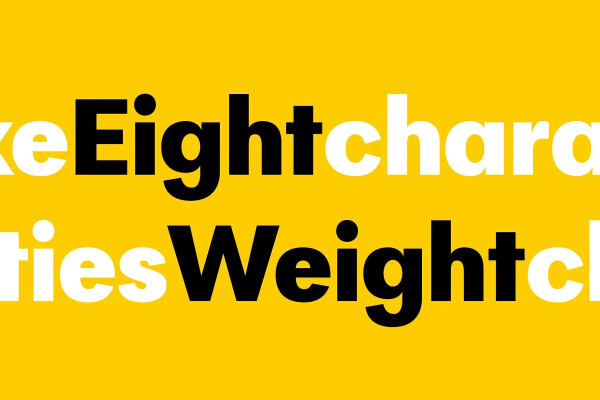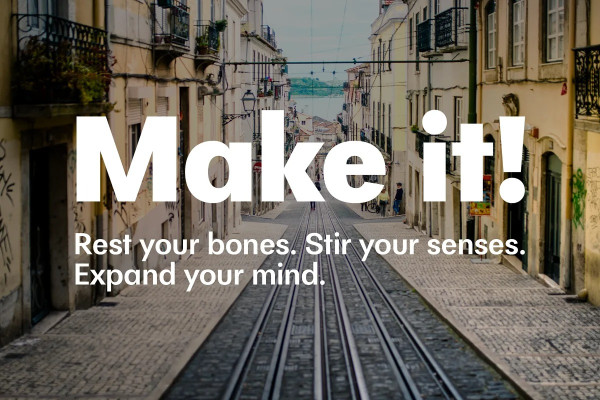
Quadra Font
Quadra Font is a sans serif family that comes with 8 weights ranging from thin to black and is equipped with opentype features.
Opentype features include capital spacing, ordinal, fraction and staylistic alternates. Stylistic alternate includes lowercase letters a, t and u.